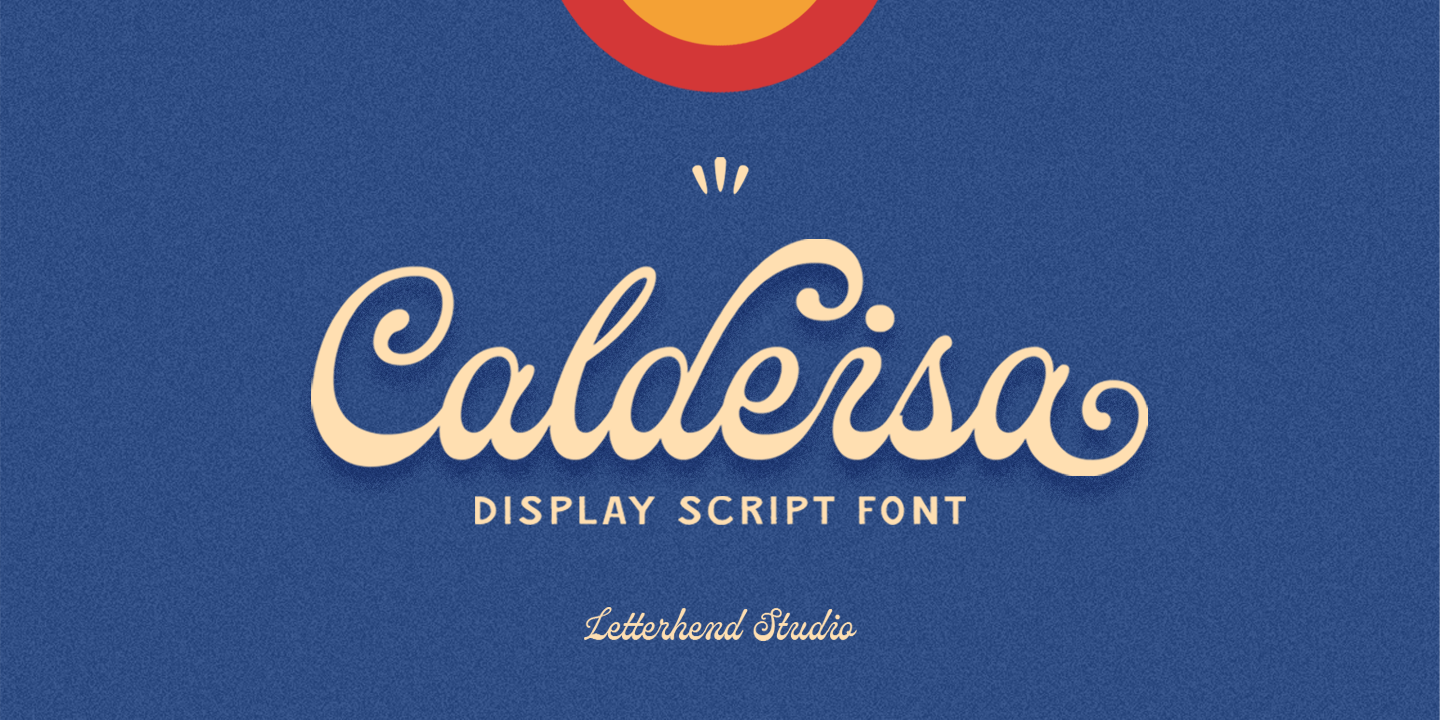
Caldeisa
Caldeisa is a stunning display script font that combines elegance with a distinctive flair, making it perfect for various design applications. Whether you are crafting a logo, designing a headline, or creating signage, Caldeisa brings a unique, classy feel that captures attention. Its versatile nature allows it to shine in formal settings such as invitations, labels, magazines, and greeting cards, enhancing the overall aesthetic of your projects.
Equipped with a full set of uppercase and lowercase letters, numbers, and punctuation, Caldeisa caters to multilingual needs with ease. Additional features such as alternates, swashes, and ligatures offer designers the flexibility to create custom typography that resonates with their brand's identity. PUA encoding ensures seamless access to all of its special characters, making it user-friendly and efficient for various applications in fashion, packaging, stationery, and more. Elevate your designs with the timeless allure of Caldeisa, a font that stands out in any context.